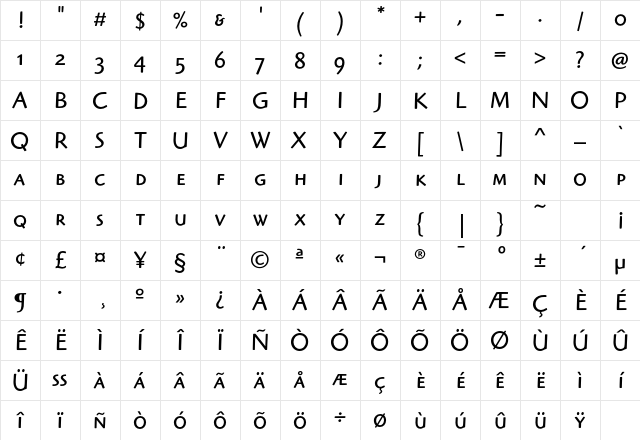
Complete HighlanderEF BookSC glyph index. Displaying only characters natively supported by HighlanderEF BookSC font.
HighlanderEF is a composed and adaptable typeface that performs quietly and consistently across a wide range of design contexts.